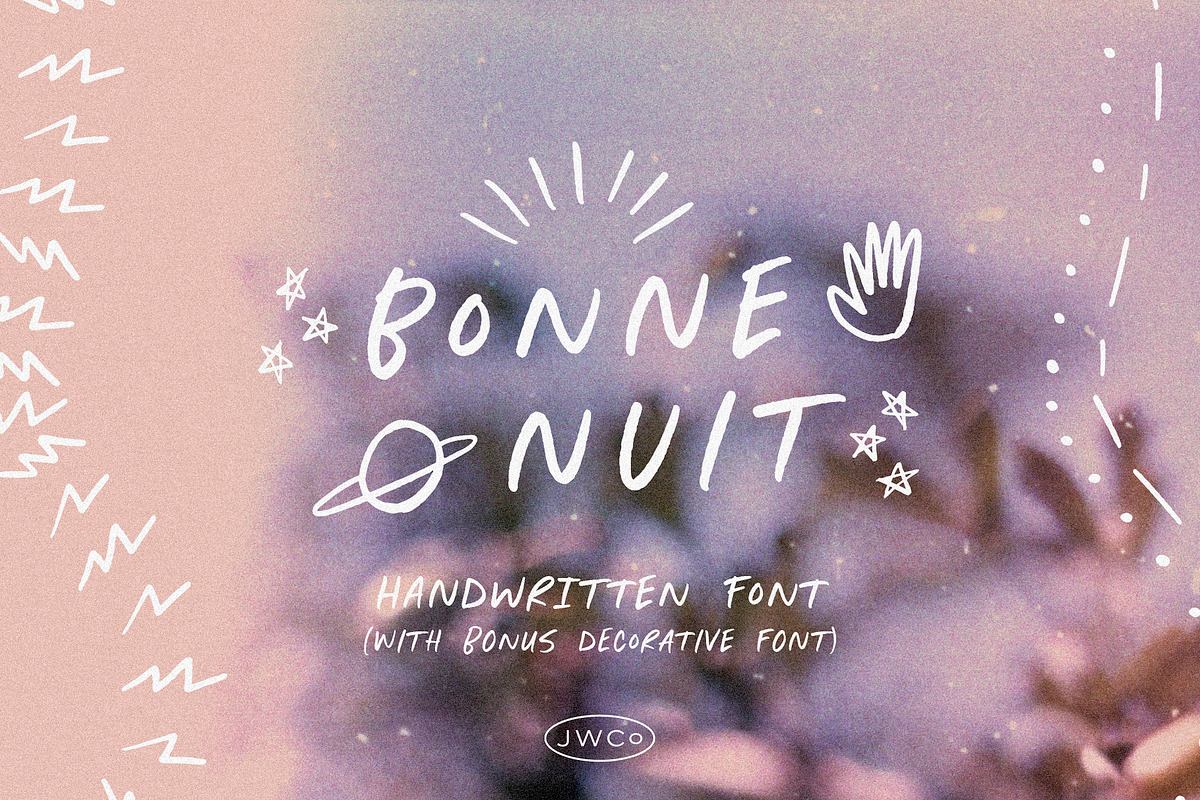
Please note, you must purchase this font for commercial use. However, you can easily download Bonne Nuit – Magical Font w/ Dingbat Free Download for personal use and testing purposes. Bonne Nuit – Magical Font w/ Dingbat is a whimsical and enchanting typeface, perfect for fantasy-themed projects, invitations, posters, and logos. With its unique combination of magical letterforms and decorative dingbat symbols, this font brings a playful and imaginative touch to any design. Whether you're working on a children's book, a mystical branding project, or event invitations, Bonne Nuit – Magical Font w/ Dingbat Free Download will infuse your work with charm and creativity. Its versatile design ensures it works beautifully across various mediums, from print to digital. Download Bonne Nuit – Magical Font w/ Dingbat Free Download today and explore its magical potential before opting for a commercial license.